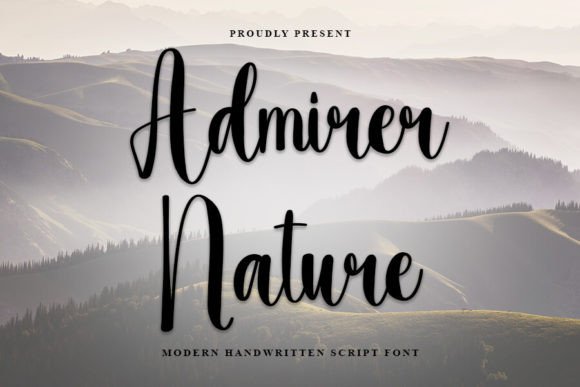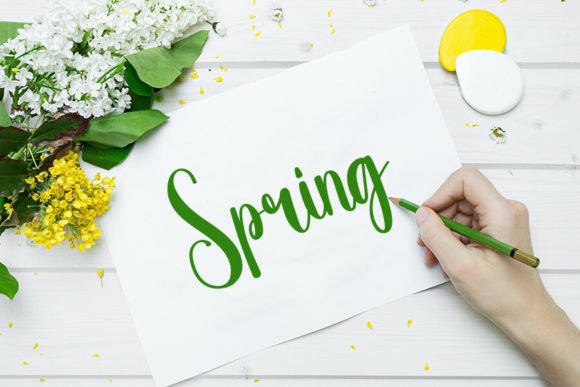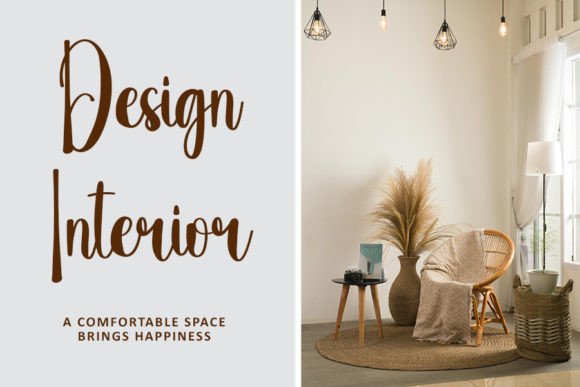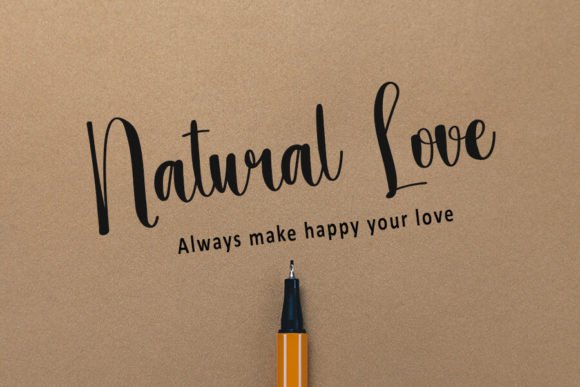
Admirer Font: Bold Handwritten Font for Authentic Branding & Social Media
About the Admirer Font
The Admirer Font is here to transform your projects with its distinctive character and style. Make an impact with Admirer, a handwritten font that combines a strong, bold presence with a charming, personal touch. Ideal for branding, packaging, social media, and print, its unique style adds warmth and authenticity to any design. Achieve a professional yet approachable aesthetic with it.
Admirer excels in headlines, short slogans, and branding applications where its bold yet personal nature shines. It’s perfect for projects needing a touch of handcrafted authenticity, such as logos, posters, or packaging for artisan goods. However, its handwritten style makes it less suitable for lengthy body text or UI elements requiring high readability.
Pairing Admirer with a clean sans-serif like Montserrat for body copy creates a balanced contrast, allowing the headline to command attention while maintaining legibility. For a more playful feel, consider pairing it with a rounded geometric sans-serif such as Circular Std. A classic serif like Garamond could also work, offering a sophisticated counterpoint to Admirer’s hand-drawn energy.
Admirer’s personality is best described as bold, approachable, and authentic. It’s ideal for brands that value both personality and professionalism, such as boutiques, cafes, craft breweries, or lifestyle brands emphasizing handmade quality.
Admirer Font Example